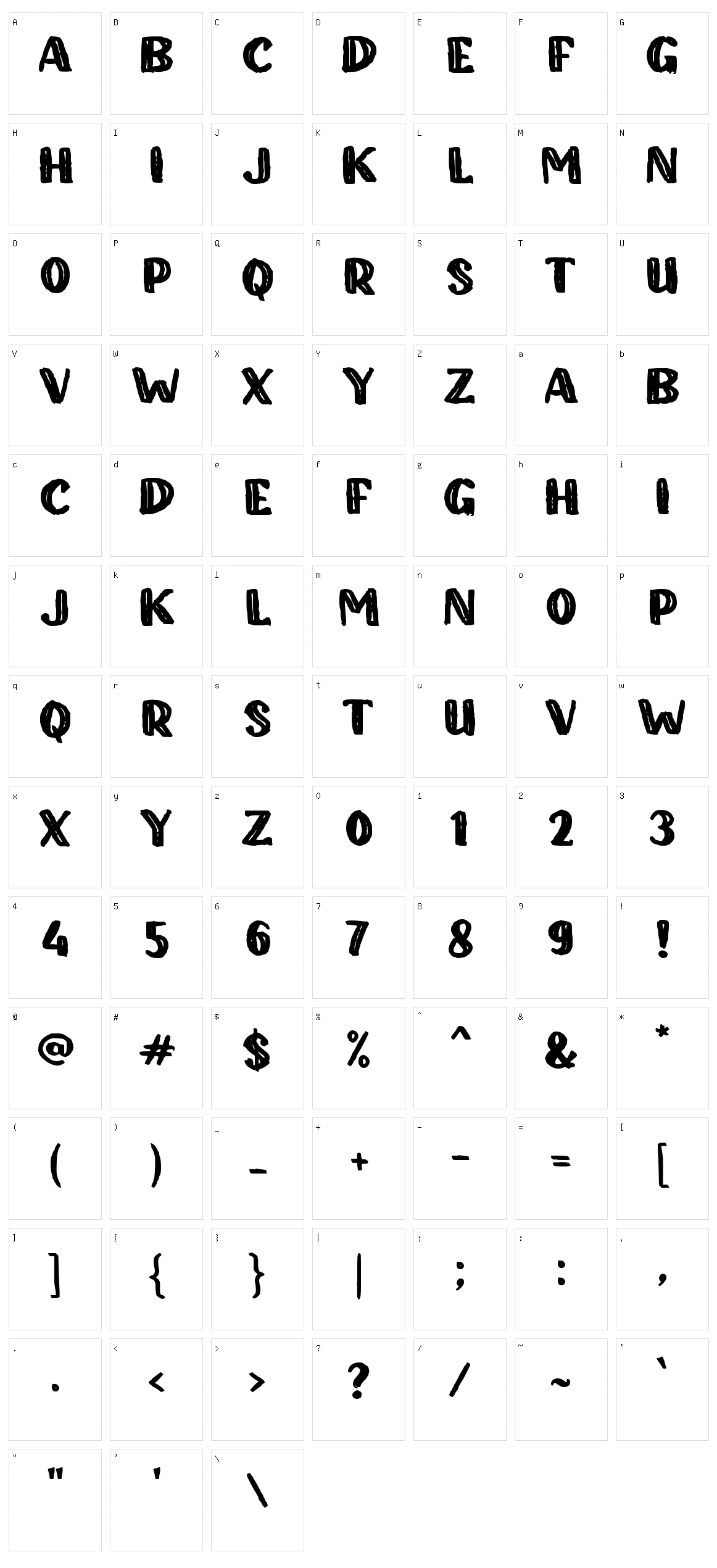
The free font b Bates is carefully designed by wep, showcasing a thoughtful balance of creativity and usability and falls under the Eroded font style. When you download the ZIP file, it contains only 18.46 KB of font files, making it lightweight and quick to download. Please review the license details below to understand permitted usage and distribution rights. If license information is not available, we recommend using this font for personal projects only or contacting the author directly for commercial usage permissions.